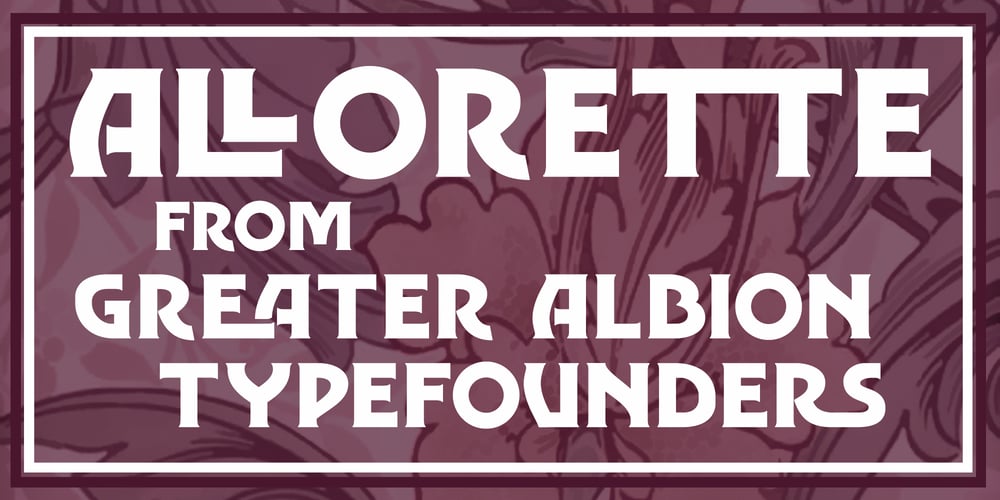
Allorette Font Family was designed by Paul James Lloyd and published by Greater Albion Typefounders. Allorette contains 1 styles and family package options. Allorette is a display face inspired by the precepts of the ‘Arts and Crafts’ movement – it is both functional and beautiful, a good clear all capitals face with distinctive design touches, but immediately clear and legible. Especially suitable for poster and signage work. An extensive range of discretionary ligatures are included, readily giving the aspect of carefully thought out hand-drawn lettering.